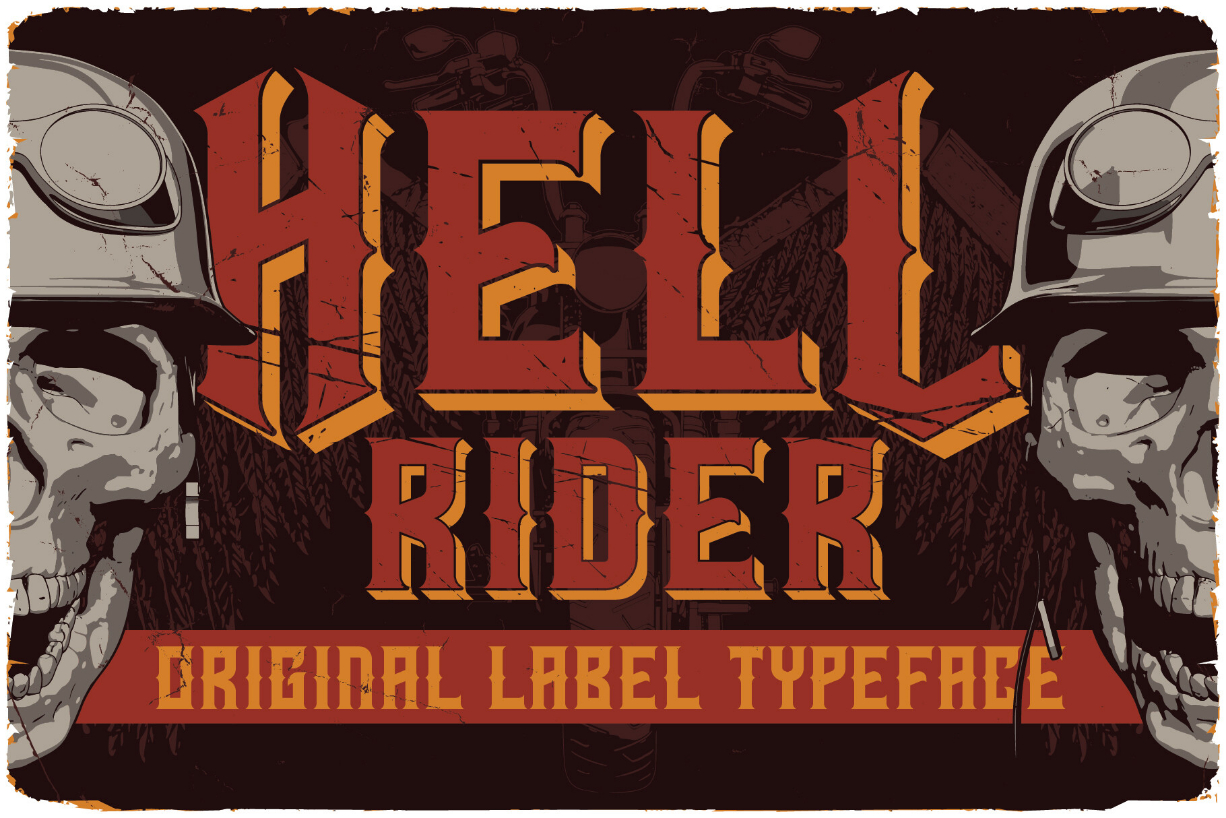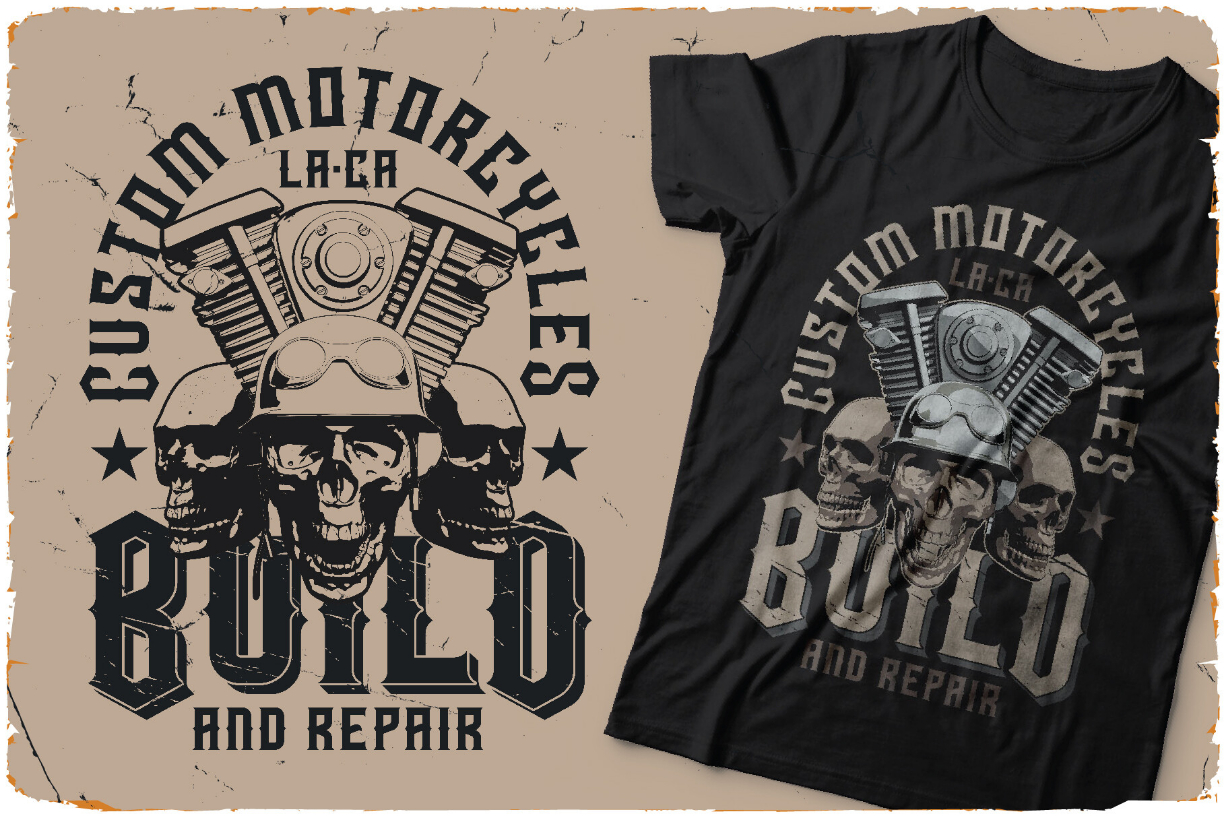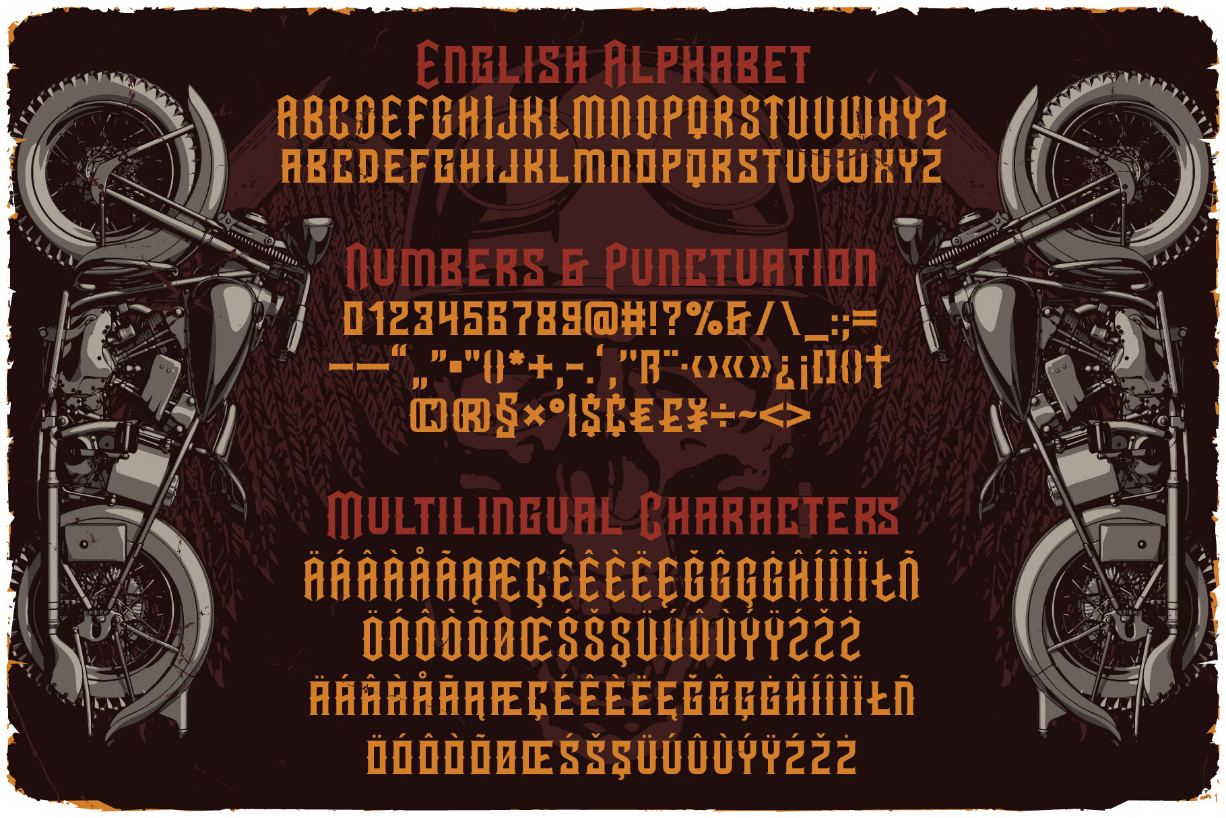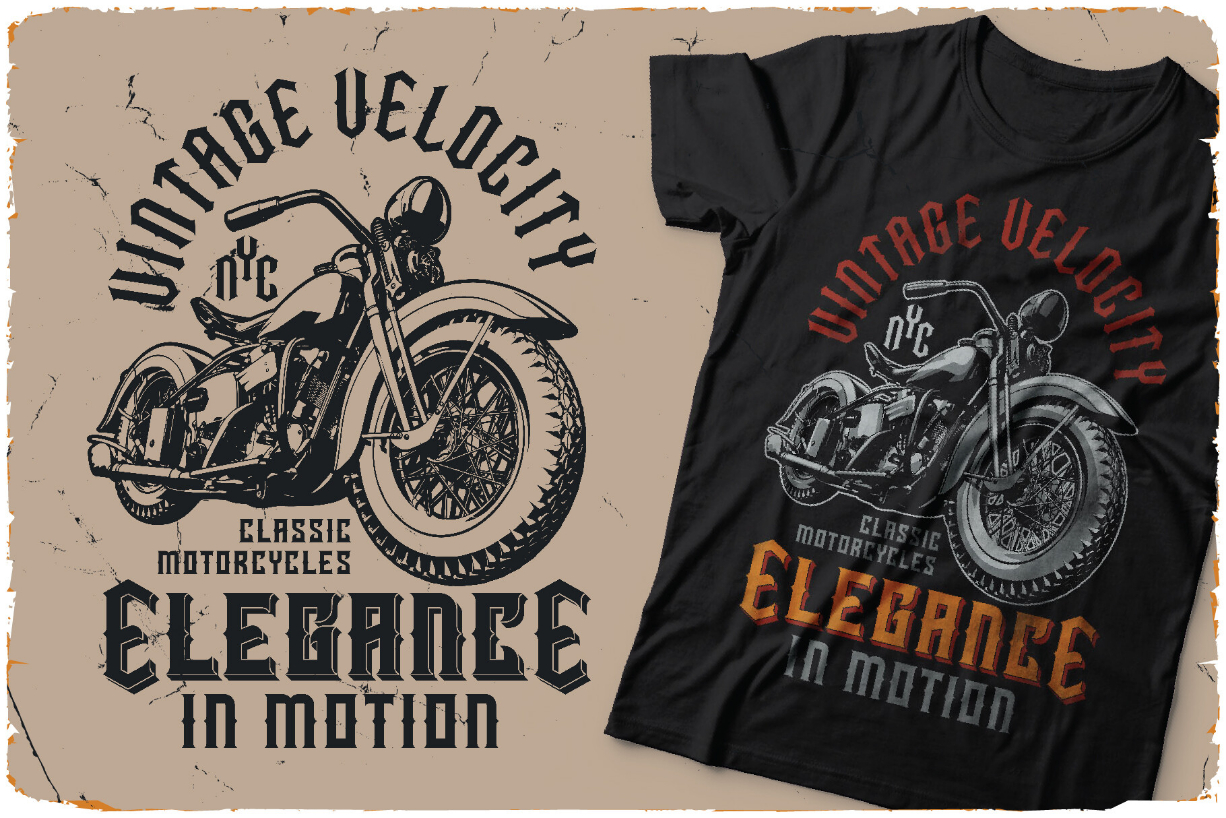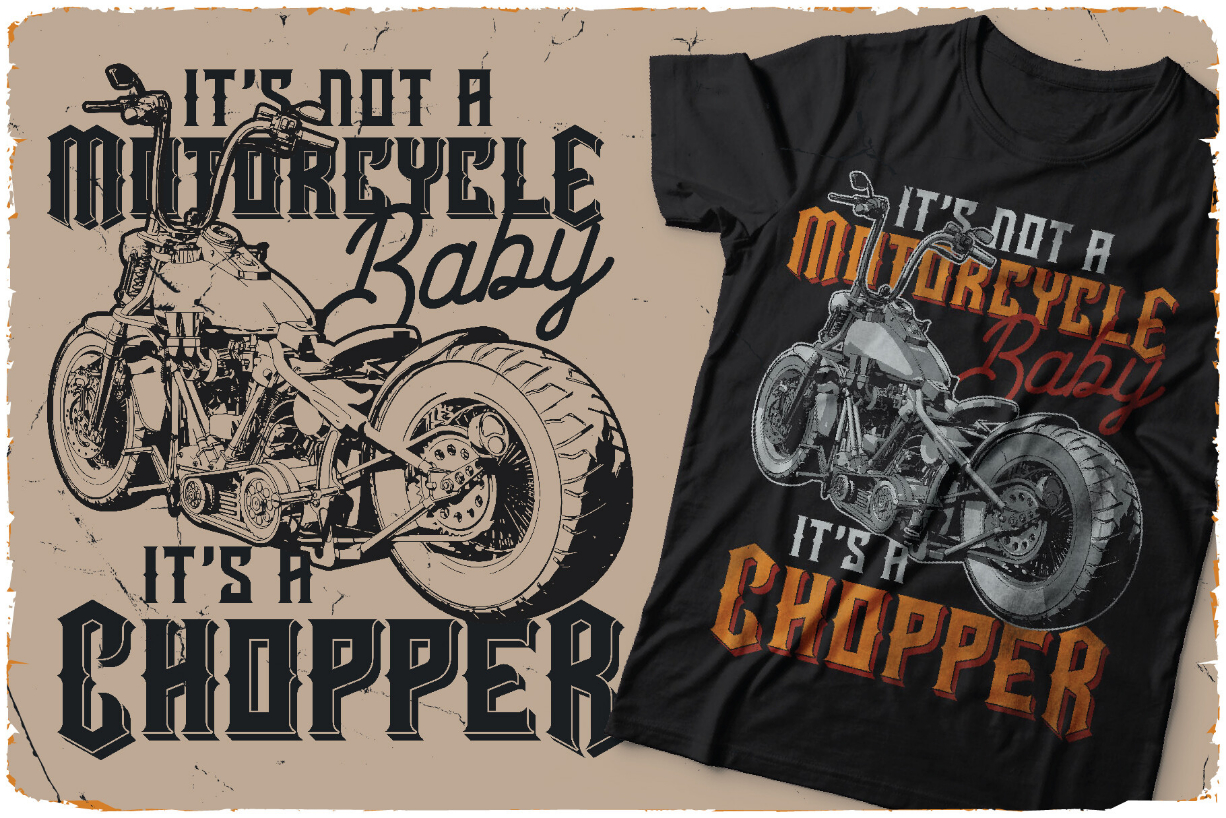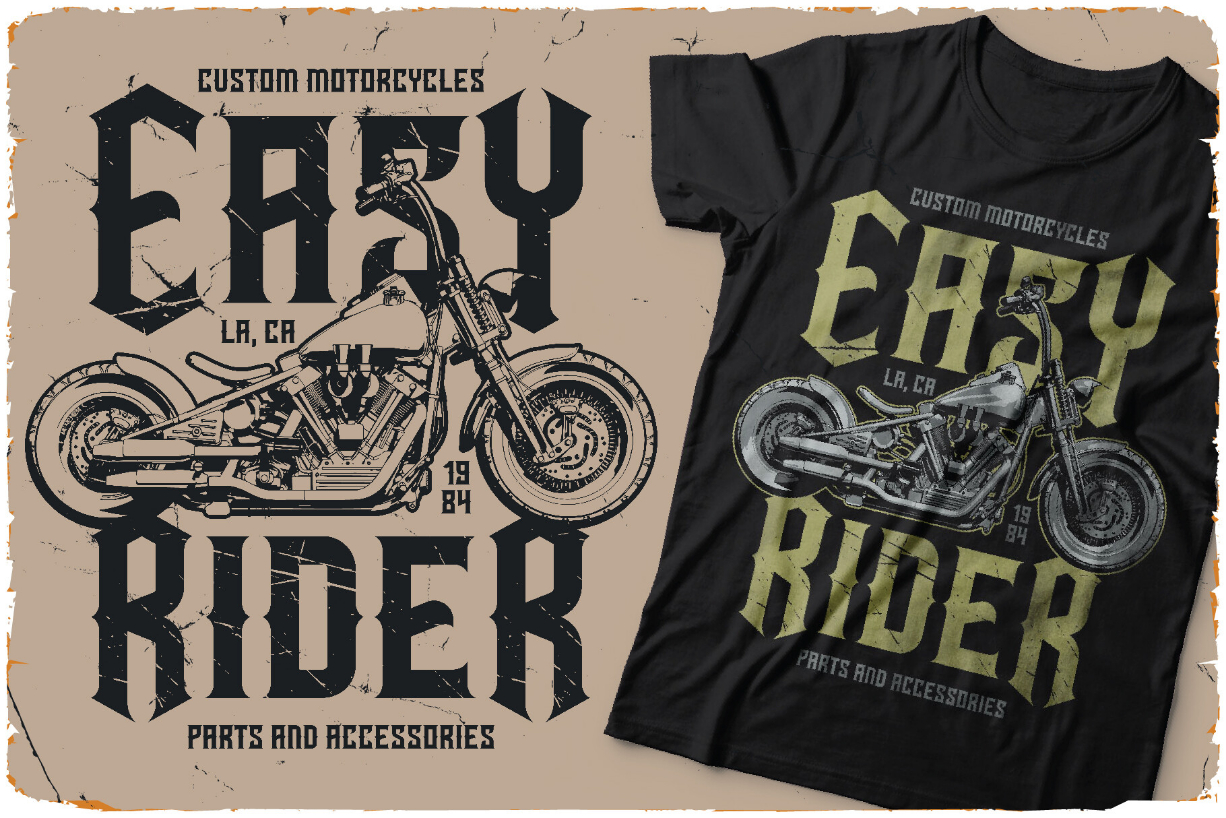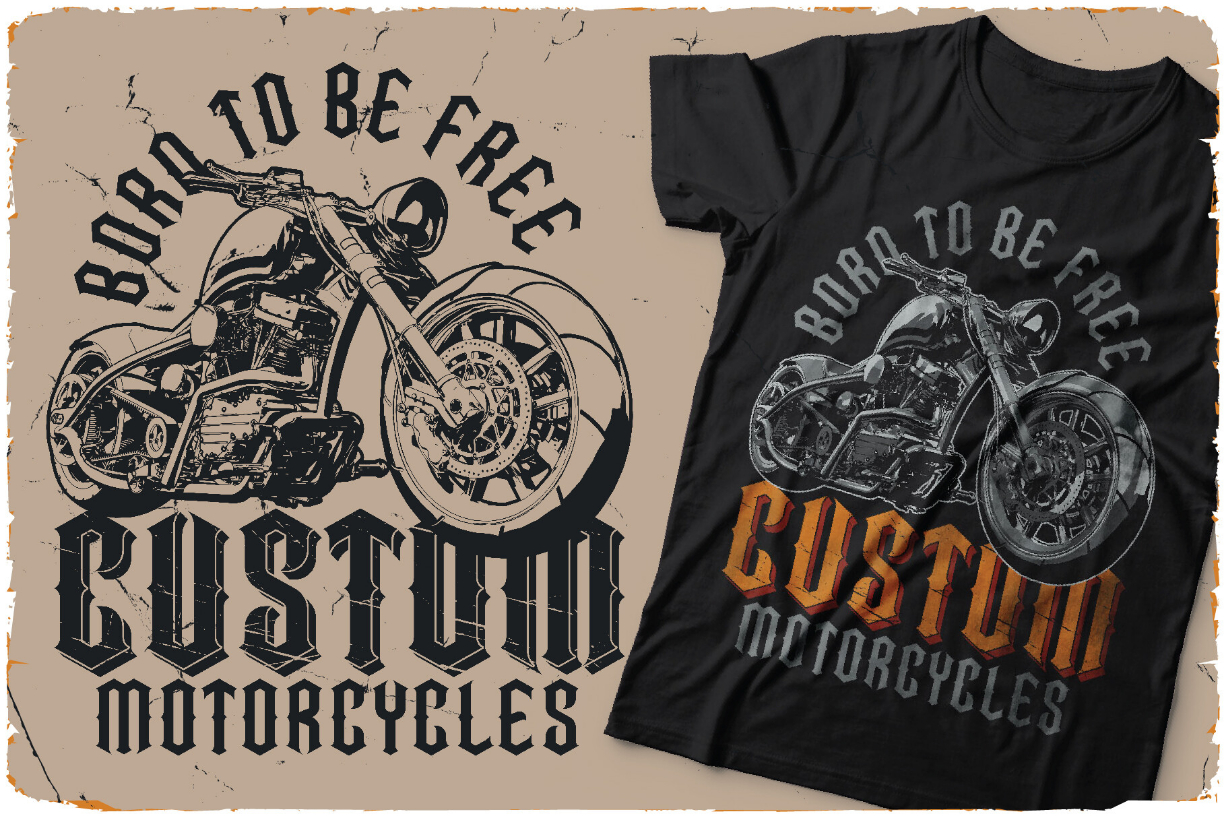
Hell Rider Font
About Hell Rider Font
Meet Hell Rider, a vintage label font that embodies the rugged spirit of the open road. With its weathered edges and bold lettering, Hell Rider adds a touch of nostalgia and adventure to your designs. Whether you’re crafting classic labels, vintage-inspired packaging, or retro posters, this font revs up the authenticity and gives your projects a timeless, rebellious charm.